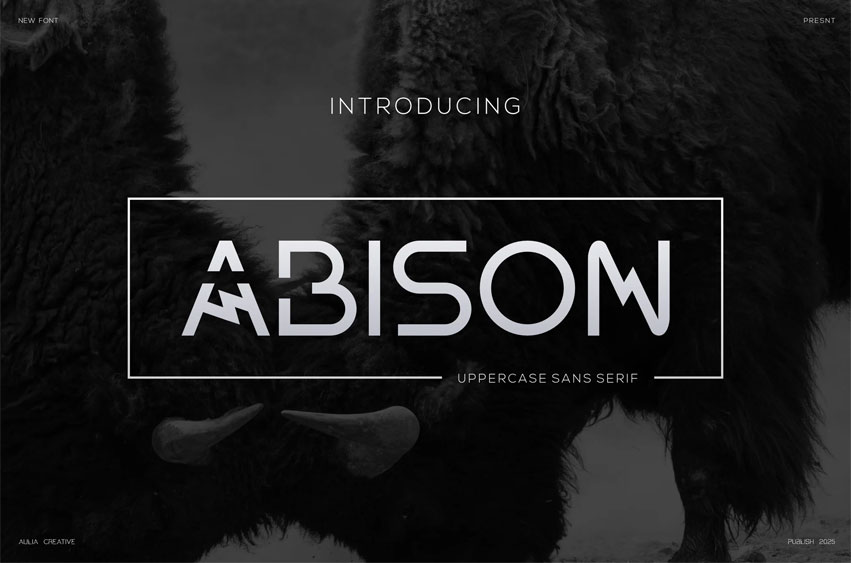
Abison Font
Abison Font Sans is and awesome and authentic display font. Introducing QERS, a font that embodies modern luxury and elegance.
Designed to enhance your brand image, QERS combines a minimalist and ultra-classy style with timeless sophistication, making it perfect for high-end logos and branding projects.